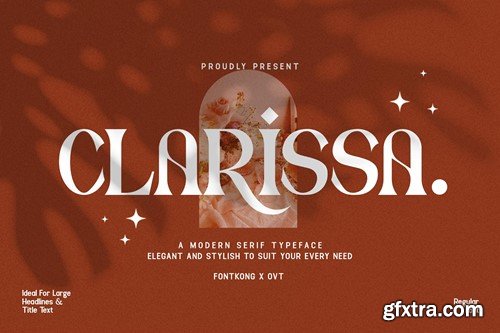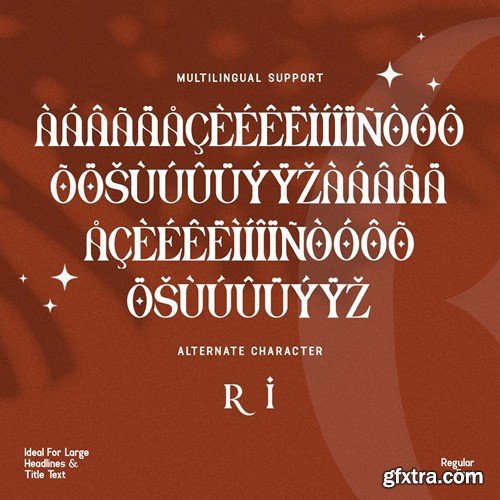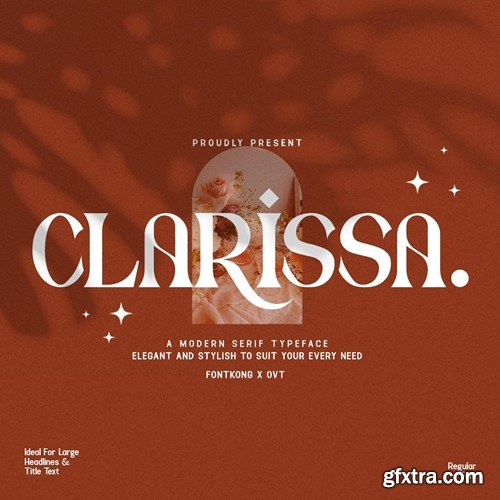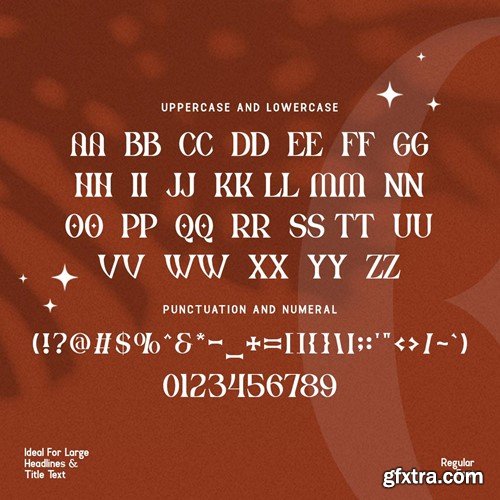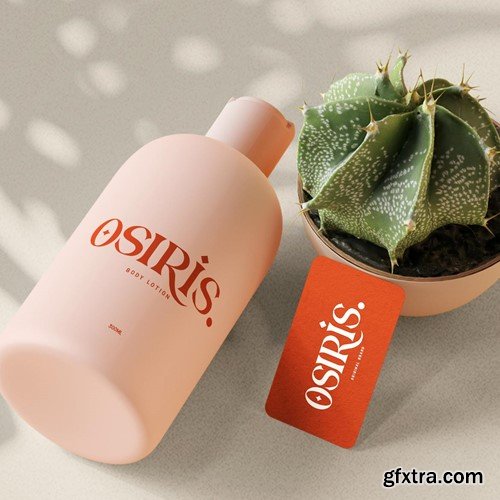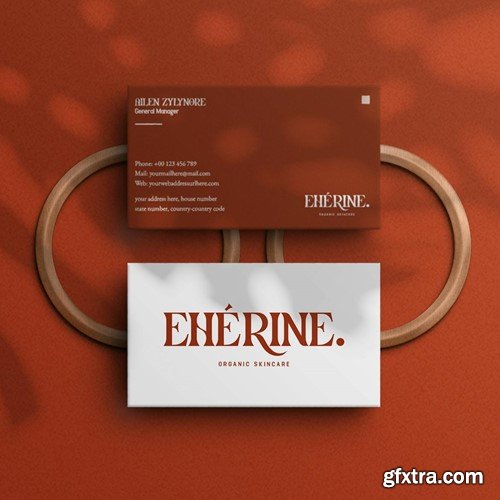
克拉丽莎 - 现代衬线字体 4RWV2V9
Clarissa - Modern Serif Typeface Introducing "Clarissa," a beautifully crafted modern serif typeface that merges classic style with a fresh, contemporary feel. Designed for versatility and impact, Clarissa offers an array of possibilities for designers looking to elevate their projects with a sense of sophistication and uniqueness. Clarissa is characterized by its clean lines, refined serifs, and a balanced structure that enhances readability across various mediums. It is perfectly suited for high-end editorial work, sophisticated branding, and stylish advertising. This typeface includes a comprehensive set of weights, true italics, numerals, punctuation, and broad multilingual support, making it an excellent choice for global communication. Ideal for everything from book covers and magazine layouts to corporate identity and digital media, Clarissa helps your creations stand out with its distinctive elegance. Its modern yet timeless appeal ensures that your designs not only capture attention but also maintain a lasting impression. You will receive the font files in TTF, OTF, and WOFF formats Clarissa is the ultimate modern serif for adding a distinguished touch to your design toolkit.